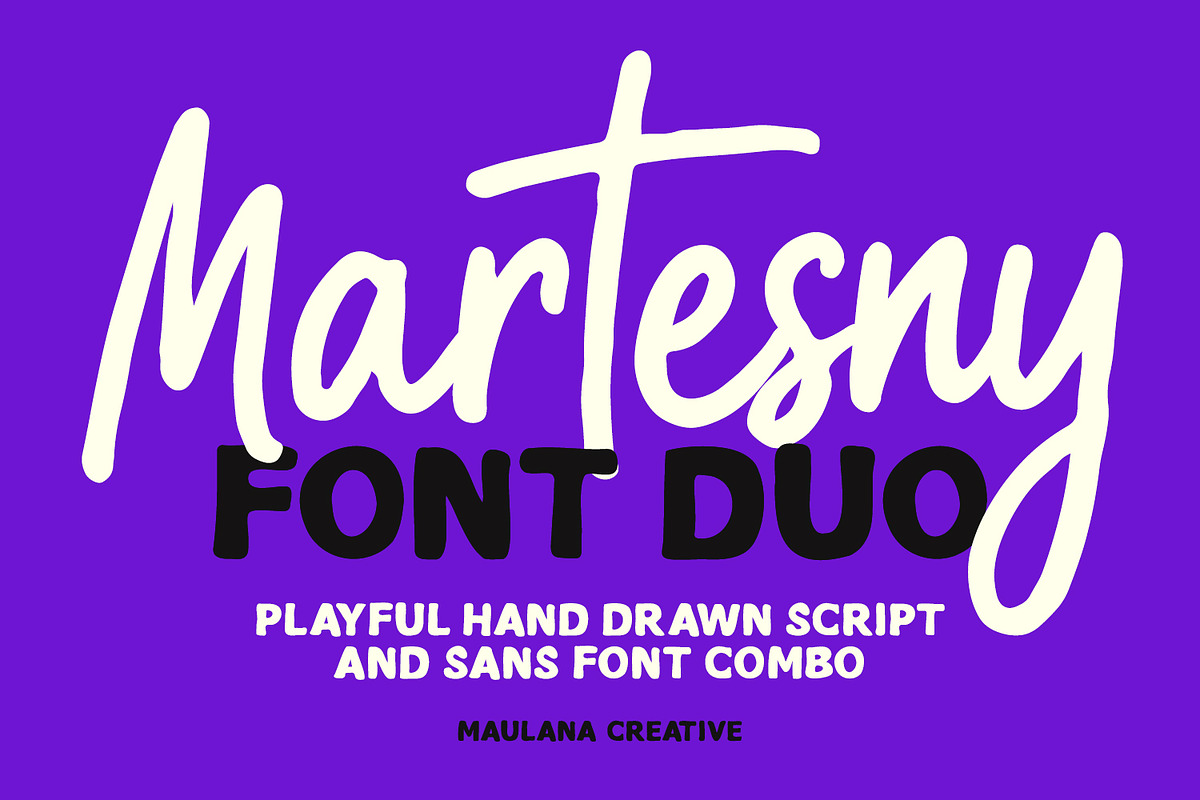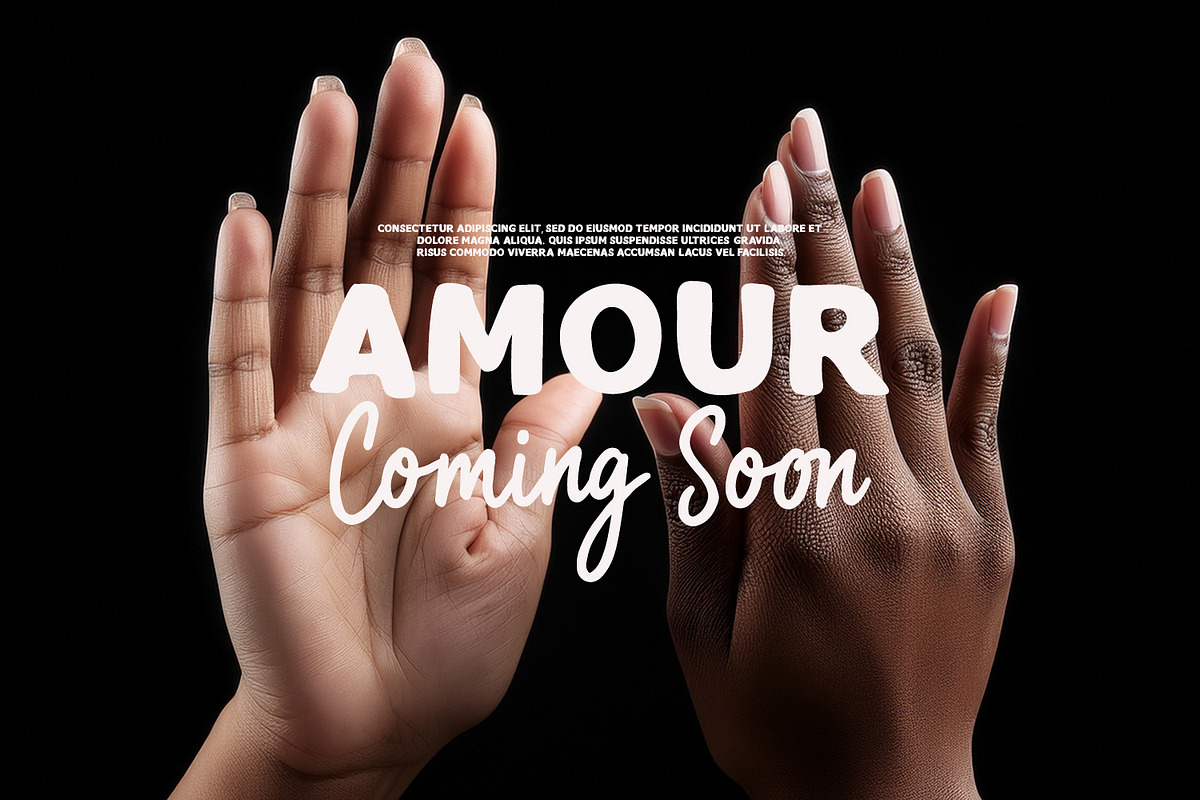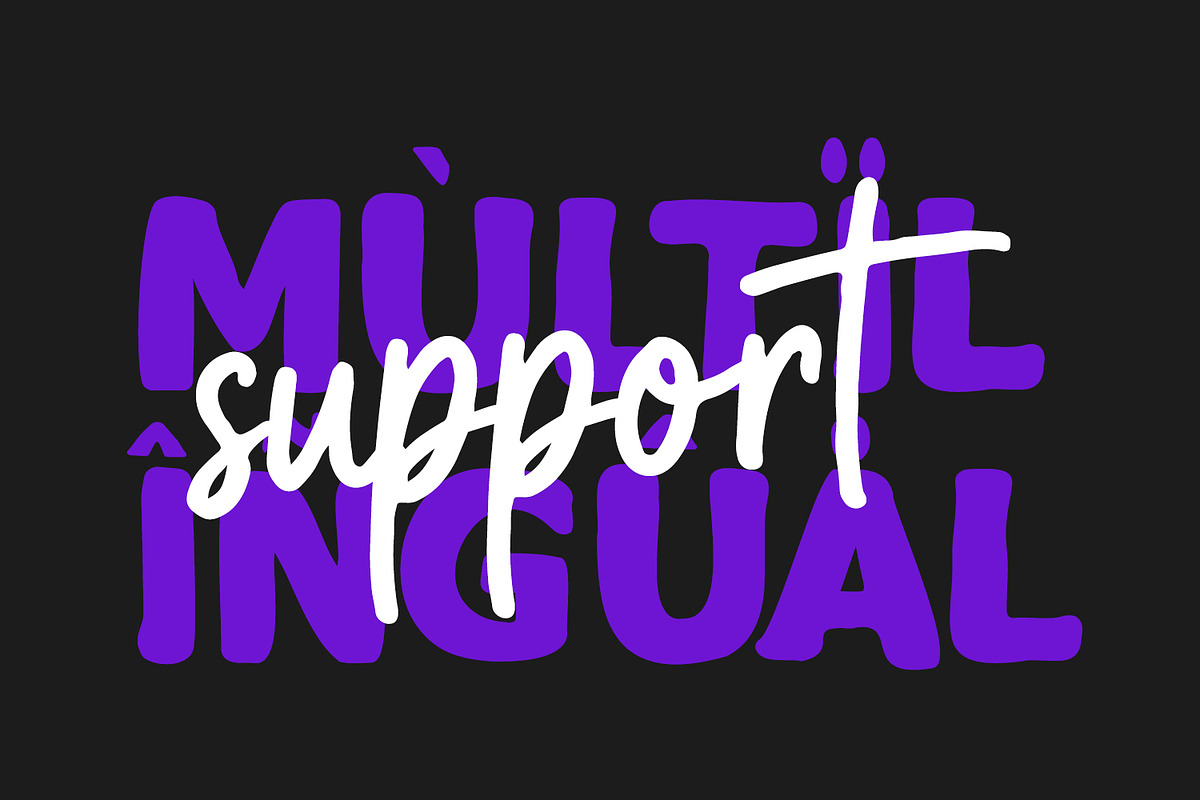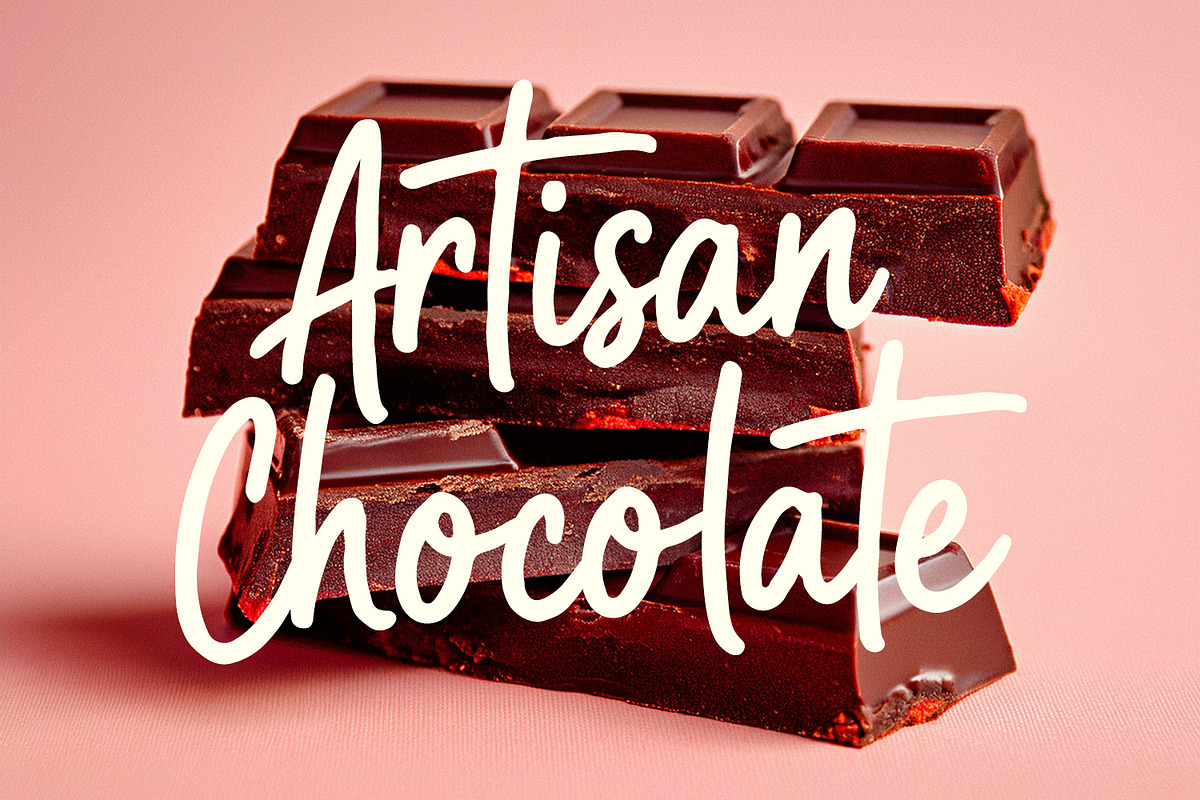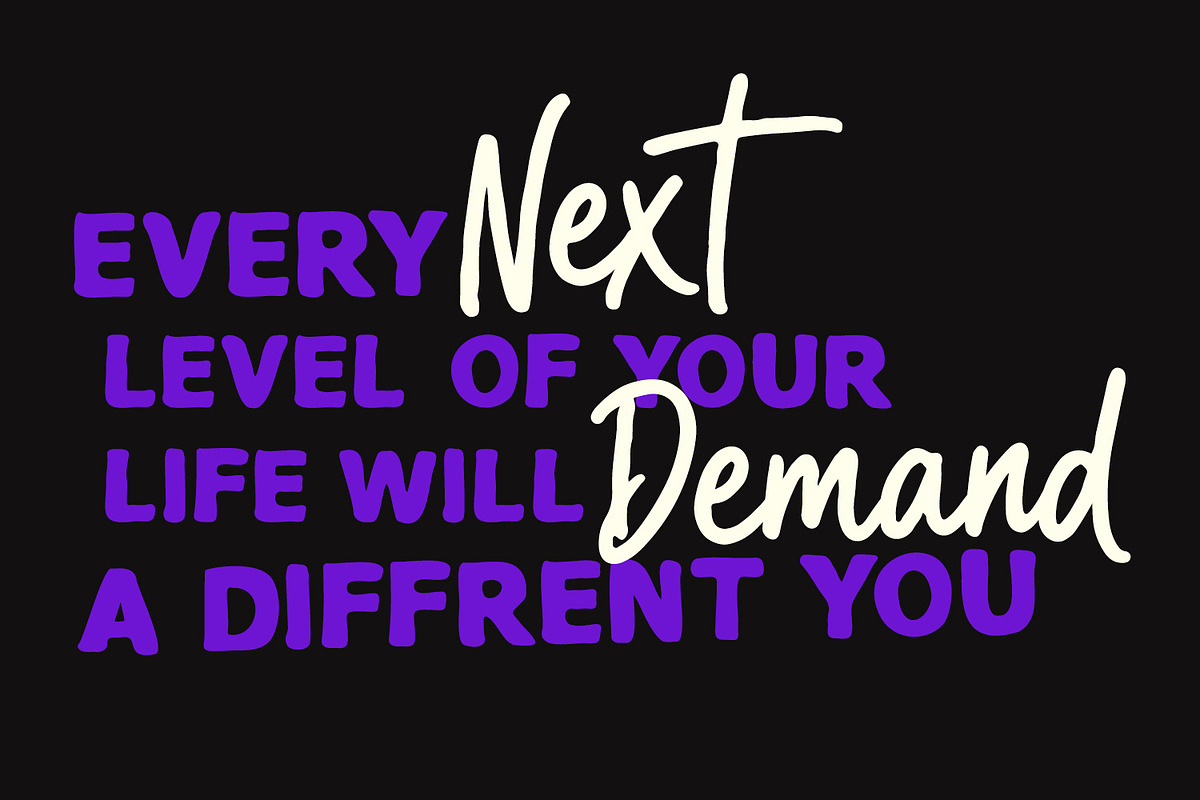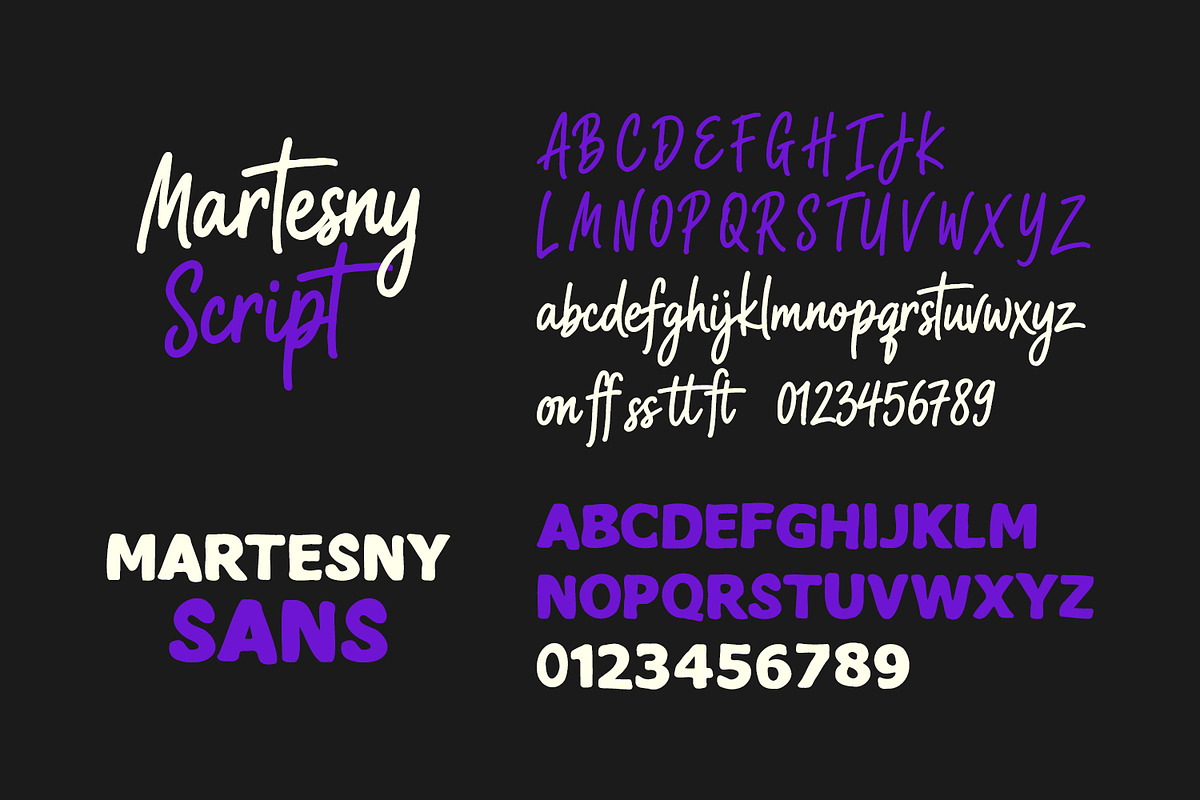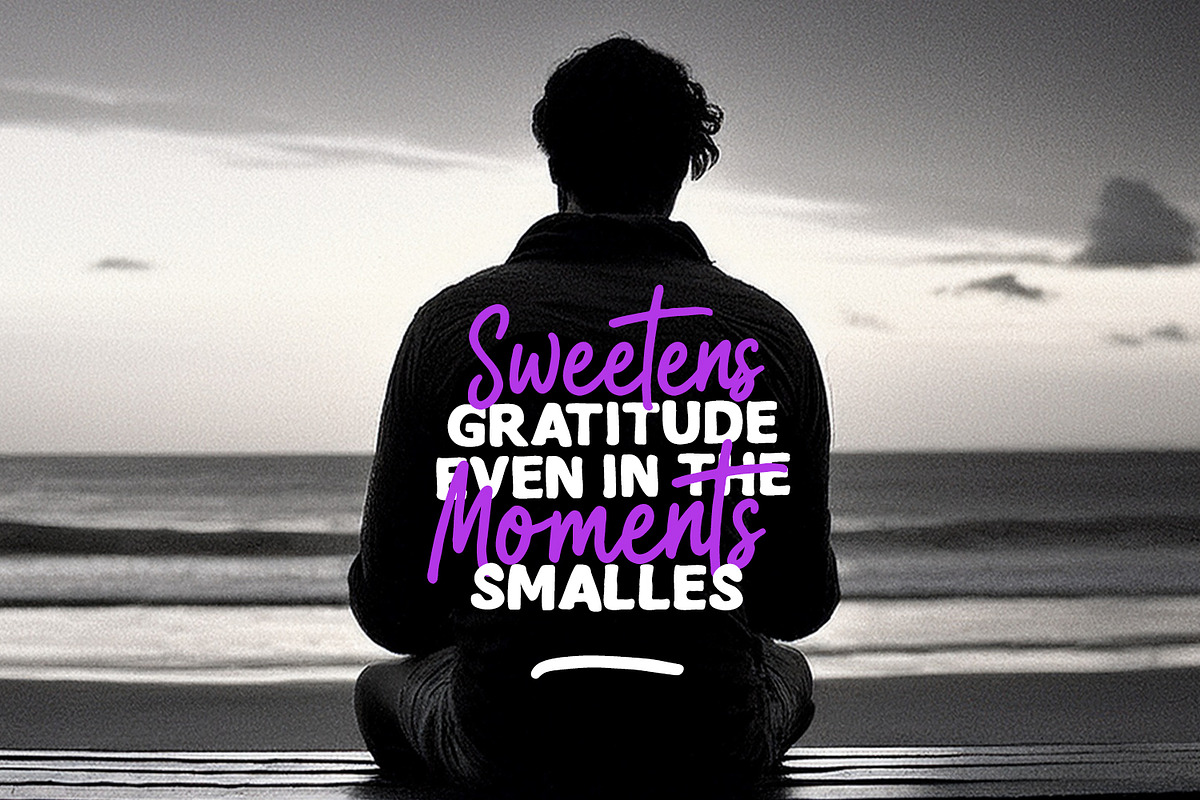
Martesny Playful Script Sans Duo
Martesny Font Duo offers a harmonious blend of a casual hand-drawn script and a bold, rounded sans-serif typeface. Designed to pair together seamlessly, this combination brings a cheerful, energetic, and expressive feel to visual projects. The fluid letterforms of the script contrast beautifully against the sturdy, clean structure of the sans version, providing versatility for dynamic layouts and creative compositions.
This typeface duo is ideal for branding, product packaging, social media graphics, quote cards, logo design, poster layouts, and event invitations. Featuring uppercase and lowercase characters, numerals, ligatures, and multilingual support, Martesny ensures smooth readability and effortless aesthetic appeal across various digital and visual media formats.
Ligature